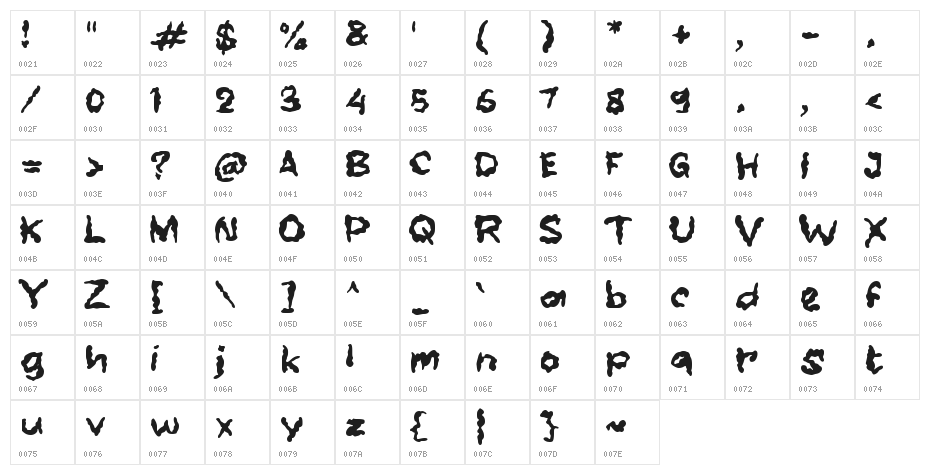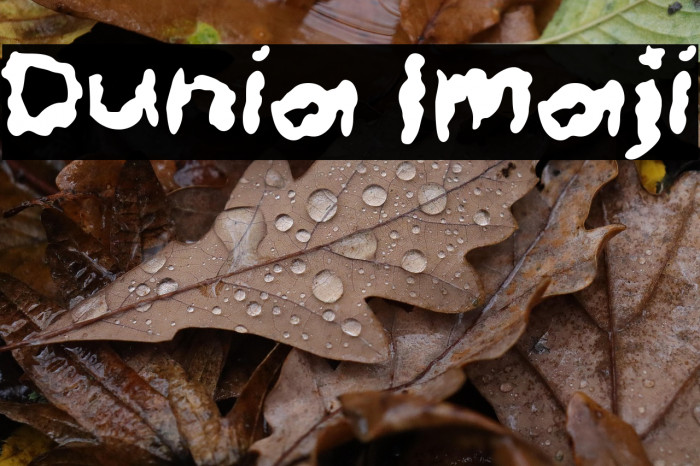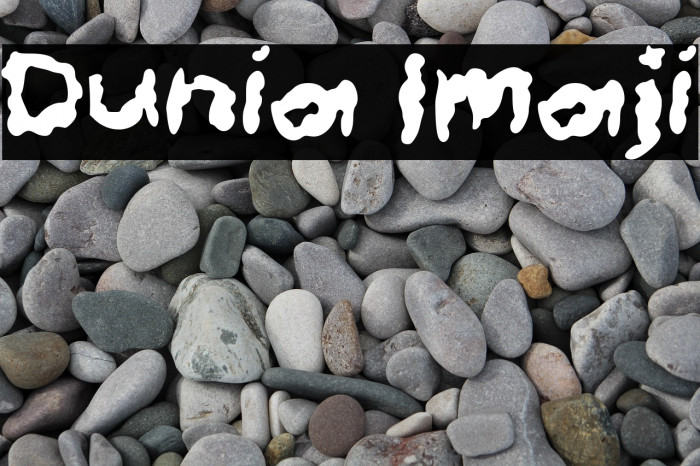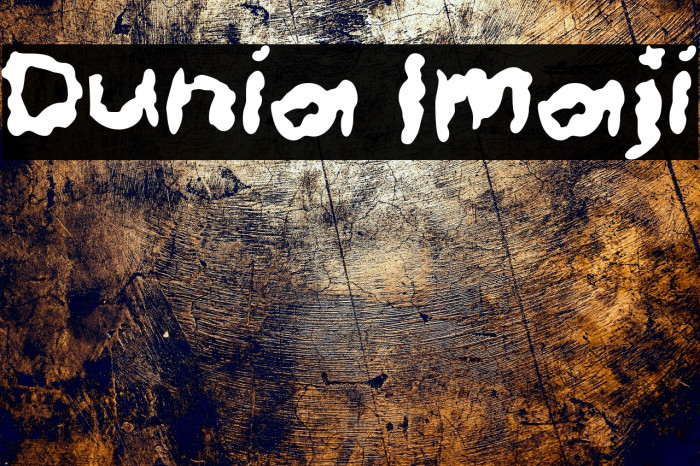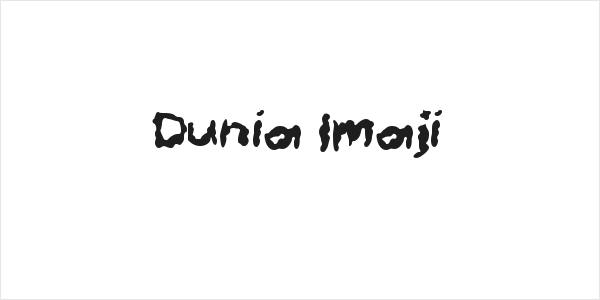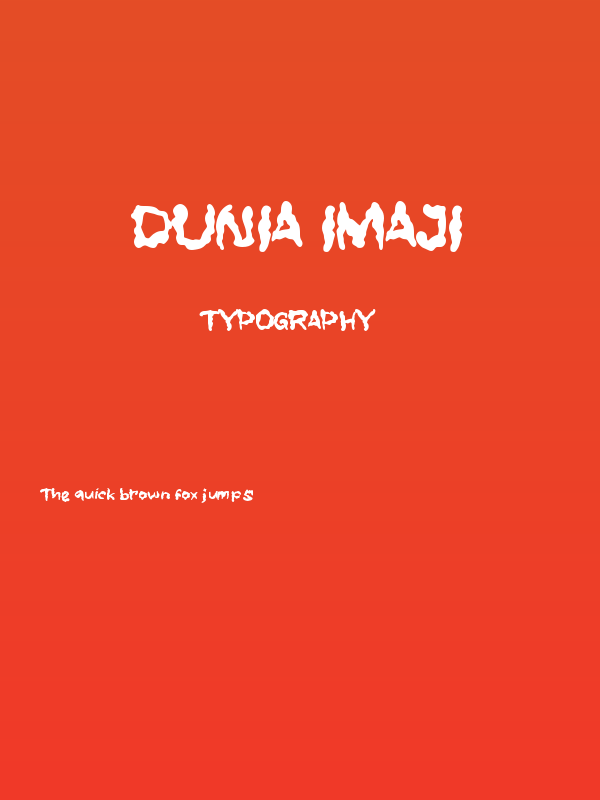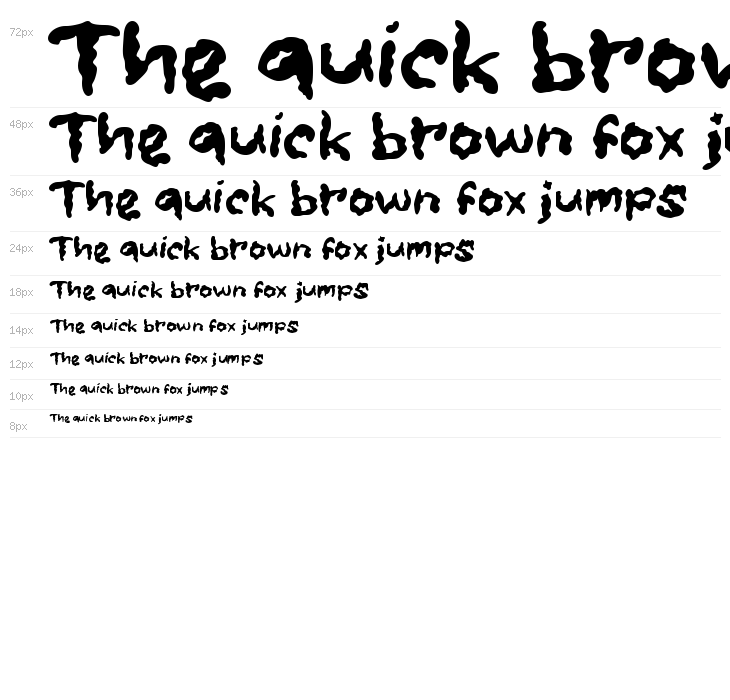
Dunia Imaji Font
Dunia Imaji Description
This font features a bold, organic style with a hand-drawn appearance, reminiscent of brush strokes or ink splatters. The characters are irregular and have a playful, artistic quality, making them stand out with their unique, textured look. The uppercase and lowercase letters maintain a consistent style, with rounded edges and varying thicknesses that add to the dynamic feel. Numbers and special characters follow the same design principles, ensuring a cohesive appearance across all glyphs. This font is ideal for projects that require a creative and unconventional touch.
| Proposed Projects | Ideal for artistic projects, posters, album covers, and creative branding. |